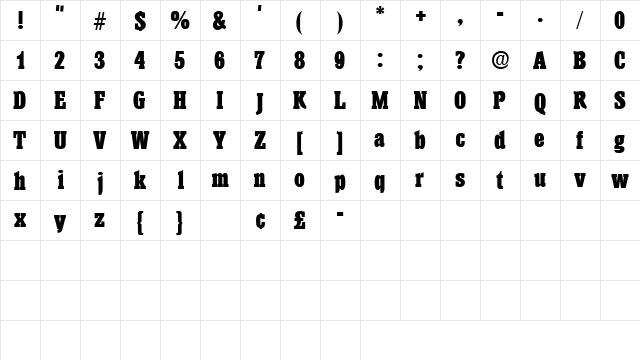
AnatoleDisplaySSK Regular Font Preview
AnatoleDisplaySSK Regular
Design Context for AnatoleDisplaySSK Typeface
AnatoleDisplaySSK is built around its visual character rather than neutral utility — its distinctive forms are designed to make an impression at display sizes.
Font Pairing: Pair with a clean neutral sans-serif for body copy to let AnatoleDisplaySSK's character lead without overwhelming the composition.
Pro Tip: Use AnatoleDisplaySSK exclusively at display sizes — it was designed to be seen, not read at length. Let a neutral companion handle body copy.